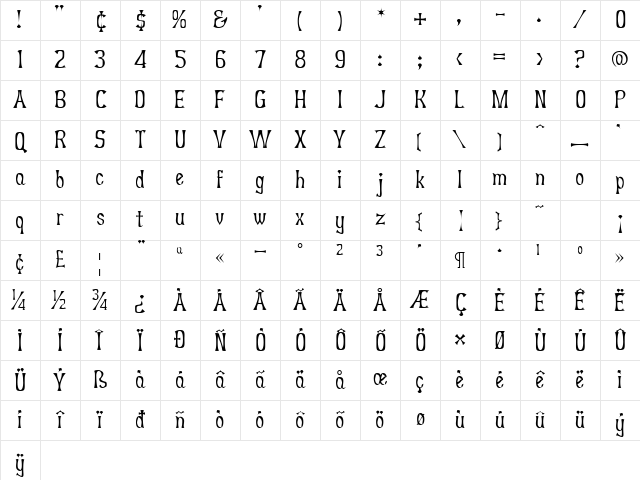
UUeirdie Roman Free Font
UUeirdie Roman
UUeirdie Family
UUeirdie Roman
Complete UUeirdie Roman glyph index. Displaying only characters natively supported by UUeirdie Roman font.
Design Context for UUeirdie
UUeirdie is a composed and adaptable typeface that performs quietly and consistently across a wide range of design contexts.